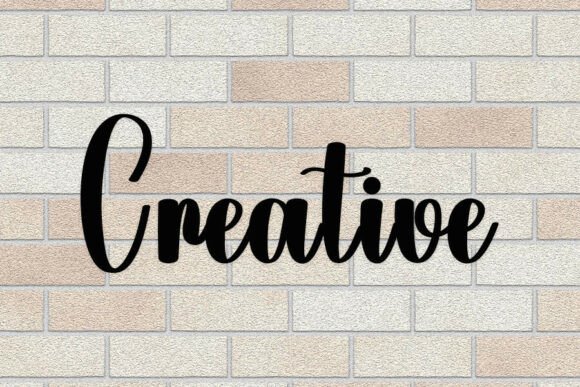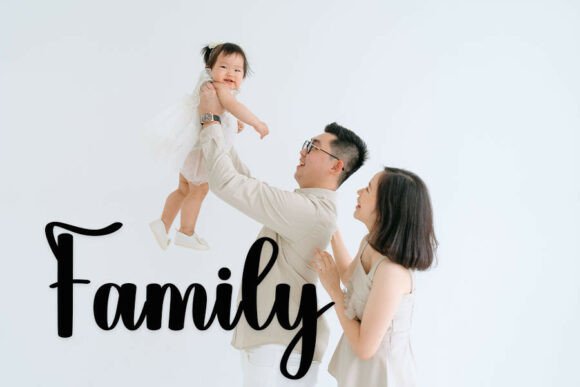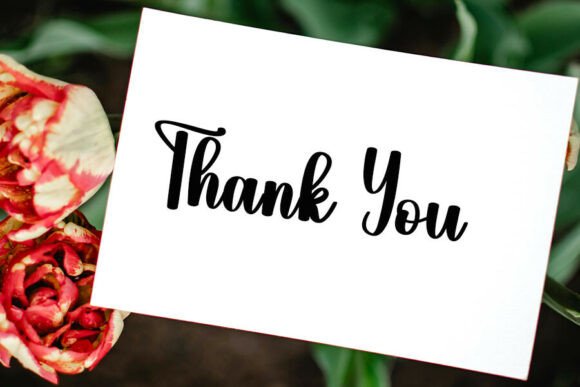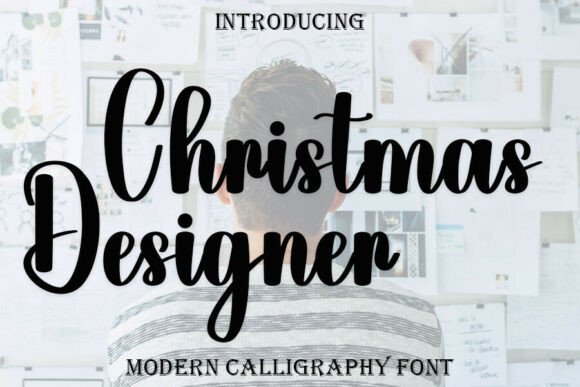
Introducing Christmas Designer Font: Elevate Your Holiday and Lifestyle Projects
Are you looking for a font that can add a touch of luxury and sophistication to your holiday and lifestyle projects? Look no further than the Christmas Designer font, a stunning modern calligraphy typeface that is sure to impress. With its striking contrast, beautiful oversized swashes, and elegant, cursive lines, this gorgeous script font is perfect for designers who want to add a sense of refined glamour to their work.
What Makes Christmas Designer Font So Special?
Christmas Designer font is a highly versatile typeface that is defined by its thick-to-thin strokes, which catch the light and command attention. The extended flourishes and smooth curves of this font create an immediate sense of luxury, making it perfect for high-end branding and exclusive events. Whether you’re designing bespoke wedding invitations, luxury fashion branding, sophisticated social media graphics, or elegant holiday collateral, this font is sure to make your project stand out.
Key Features of Christmas Designer Font
• Striking Contrast: The Christmas Designer font features a beautiful contrast between thick and thin strokes, which adds a sense of drama and elegance to your designs.
• Oversized Swashes: The oversized swashes in this font add a touch of luxury and sophistication, making it perfect for high-end branding and exclusive events.
• Elegant Cursive Lines: The smooth, flowing connections in the Christmas Designer font maintain excellent legibility, while the dramatic height of the ascenders and descenders provides unparalleled visual interest.
• Highly Versatile: This font is perfect for a wide range of projects, from wedding invitations and luxury fashion branding to social media graphics and holiday collateral.
Why Choose Christmas Designer Font?
There are many reasons why designers and crafters should choose the Christmas Designer font for their holiday and lifestyle projects. Here are just a few:
• Adds a Touch of Luxury: This font adds a sense of refined glamour to any project, making it perfect for high-end branding and exclusive events.
• Improves Legibility: The clean, flowing connections in the Christmas Designer font maintain excellent legibility, even at small sizes.
• Increases Visual Interest: The dramatic height of the ascenders and descenders in this font provides unparalleled visual interest, making your designs more engaging and attention-grabbing.
• Versatile: This font can be used for a wide range of projects, from digital designs to print materials.
How to Use Christmas Designer Font in Your Projects
Using the Christmas Designer font in your projects is easy. Here are a few tips to get you started:
• Pair it with Other Fonts: Pair the Christmas Designer font with other fonts to create a unique and eye-catching design.
• Use it for Headlines: Use this font for headlines and titles to add a touch of luxury and sophistication to your designs.
• Add Swashes: Add swashes to your design to create a more elegant and refined look.
• Experiment with Colors: Experiment with different colors and textures to add depth and interest to your design.
In conclusion, the Christmas Designer font is a stunning modern calligraphy typeface that is perfect for designers and crafters who want to add a touch of luxury and sophistication to their holiday and lifestyle projects. With its striking contrast, beautiful oversized swashes, and elegant, cursive lines, this font is sure to impress. Whether you’re designing bespoke wedding invitations, luxury fashion branding, sophisticated social media graphics, or elegant holiday collateral, the Christmas Designer font is an indispensable tool that can help you create beautiful and eye-catching designs.